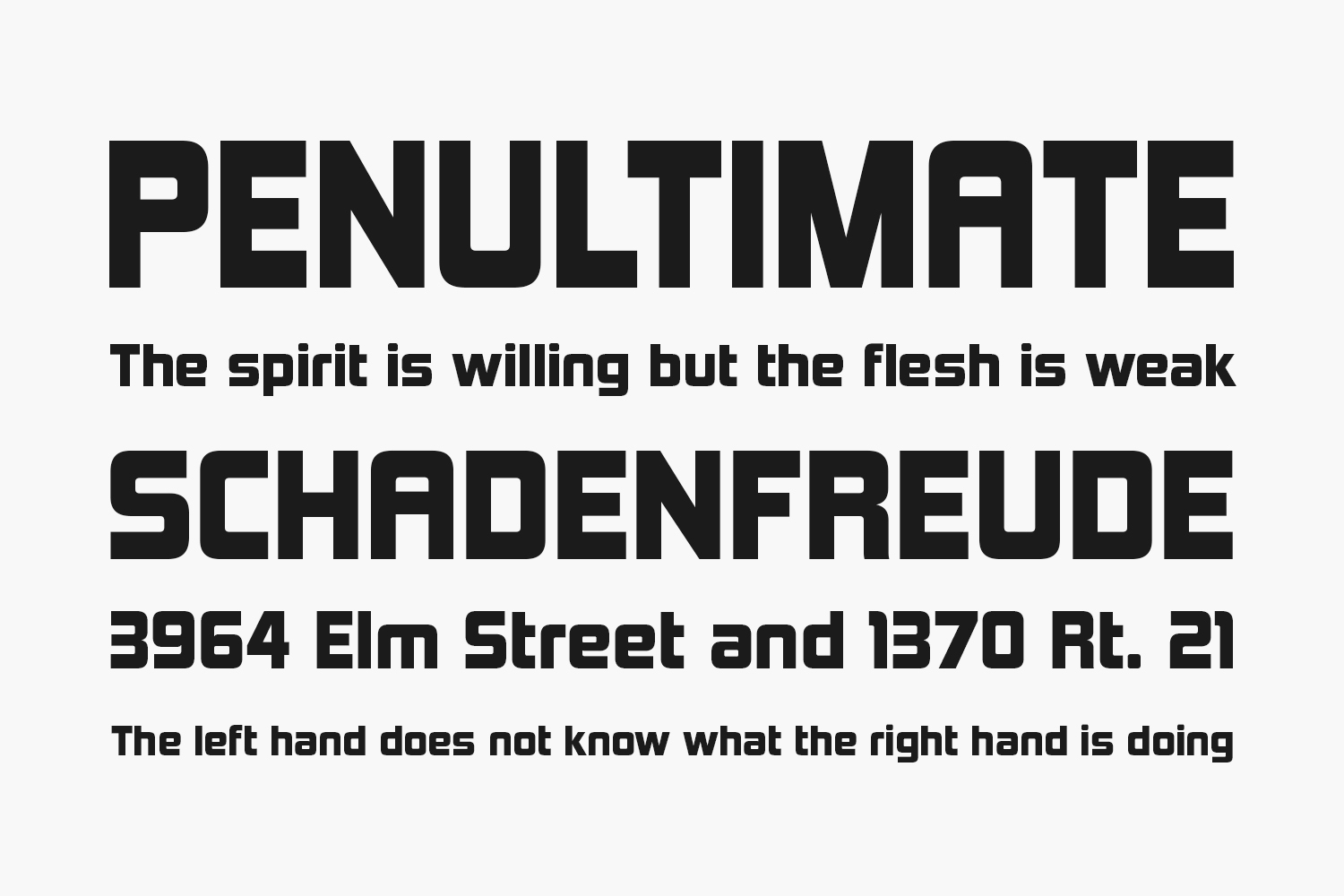
Kimberley Free Font Family is a technological sans-serif typeface in 7 weights (for free Black). Galvanized by 1970s corporate/industrial logotypes, Kimberley conveys a neoteric, machine-made aesthetic.
Designed by Typodermic